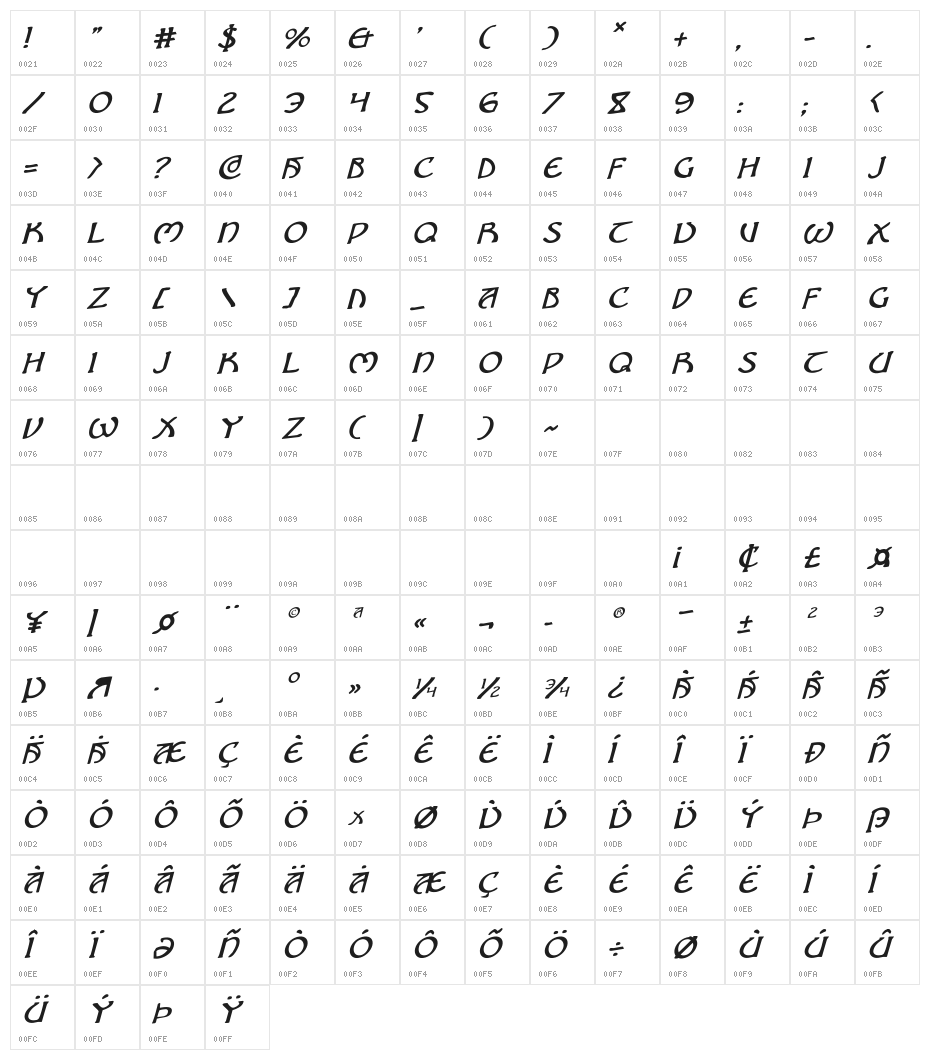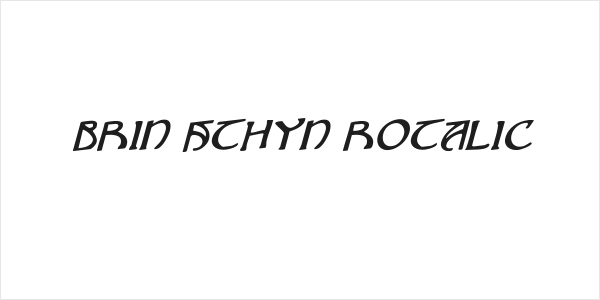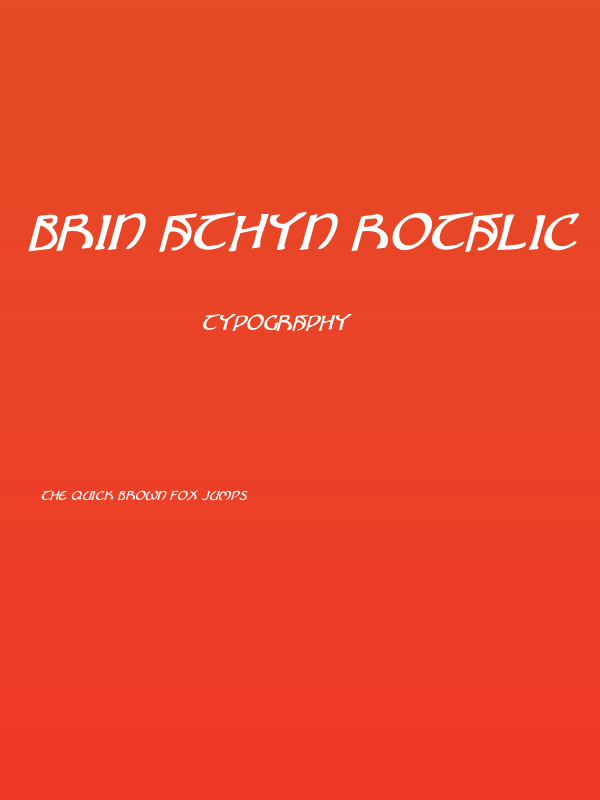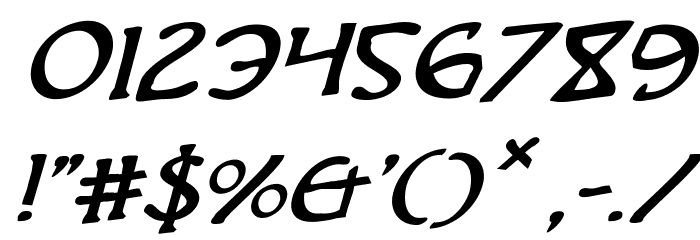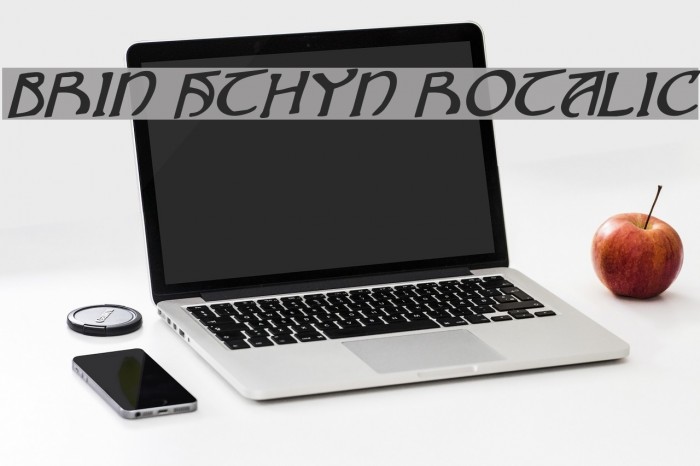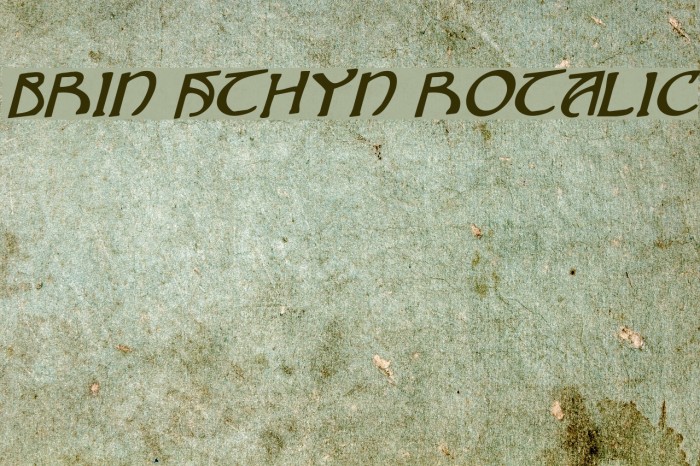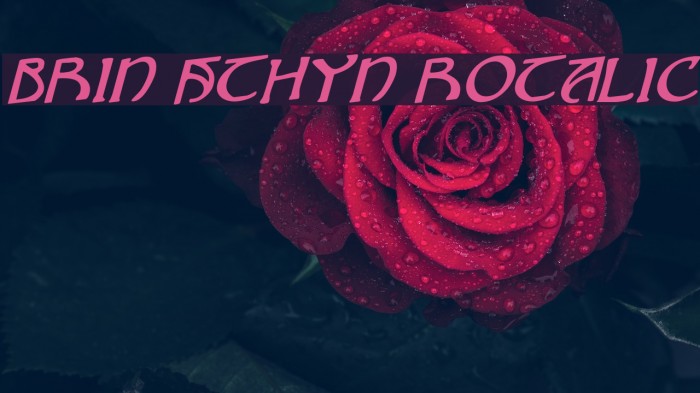
Brin Athyn Rotalic Font
Brin Athyn Rotalic Description
This font exhibits a dynamic and flowing style with a distinct italic slant, giving it a sense of movement and elegance. The characters are crafted with a calligraphic influence, featuring smooth curves and sharp edges that create a harmonious balance. The uppercase letters are bold and prominent, while the lowercase letters maintain a consistent flow, enhancing readability. The numerals are uniquely styled to match the overall aesthetic, and the special characters are designed with the same attention to detail, ensuring a cohesive look across all glyphs.
| Use Case | Headlines, Logos, Invitations |
| Proposed Projects | Ideal for branding projects, elegant invitations, artistic posters, and expressive headlines. |